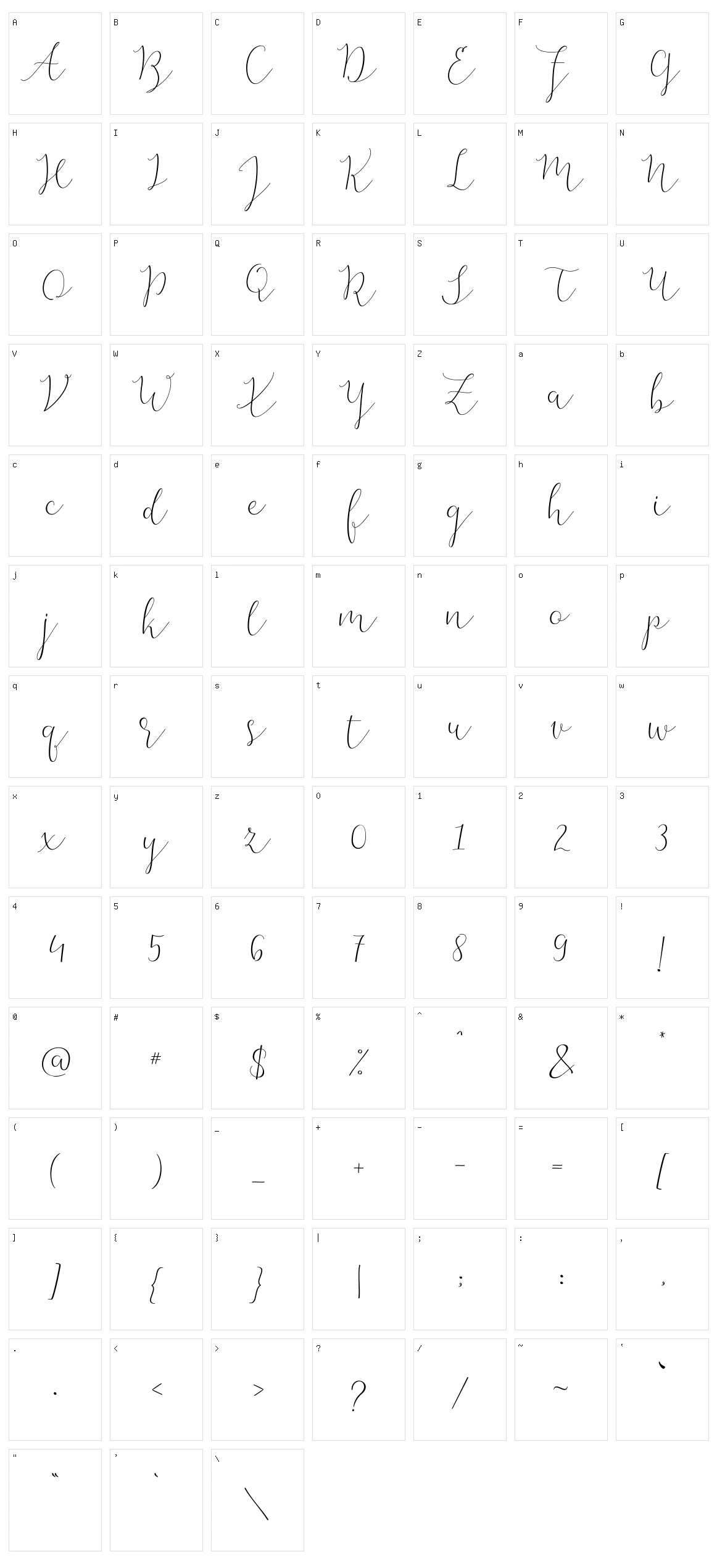
The free font The Bellaria is carefully designed by Best Font Studio, showcasing a thoughtful balance of creativity and usability and falls under the Script font style. When you download the ZIP file, it contains only 26.54 KB of font files, making it lightweight and quick to download. Please review the license details below to understand permitted usage and distribution rights. If license information is not available, we recommend using this font for personal projects only or contacting the author directly for commercial usage permissions.